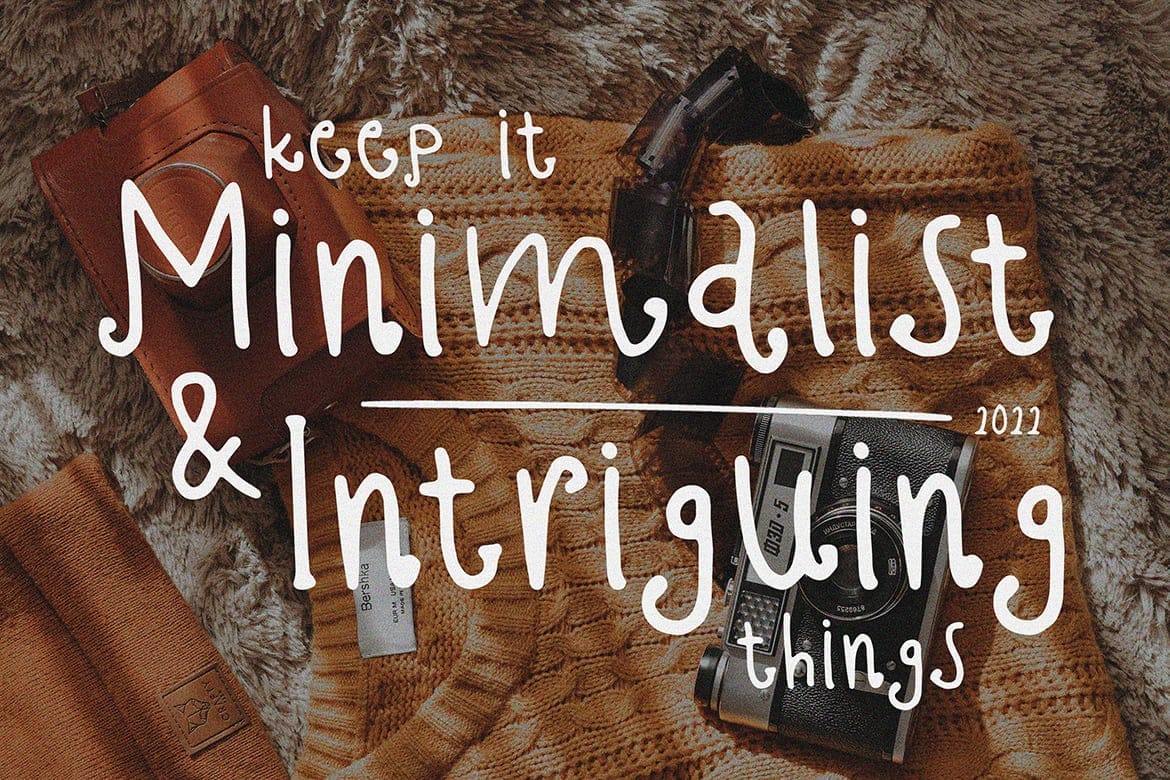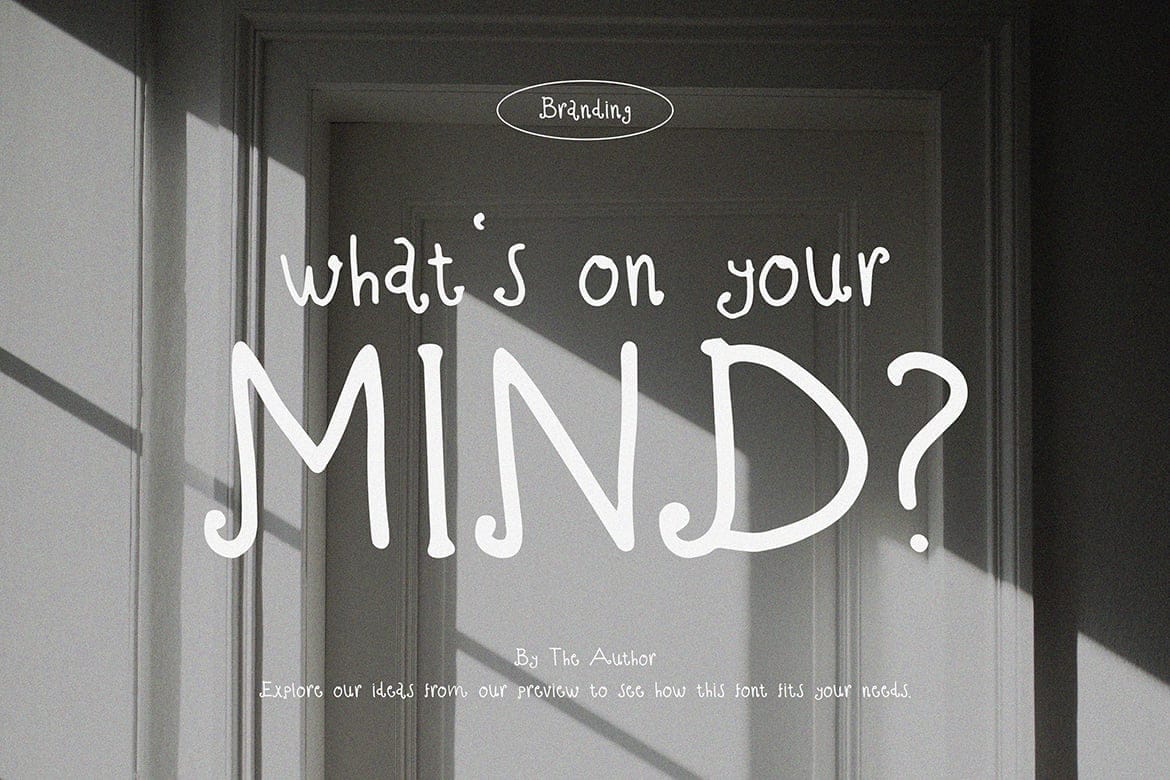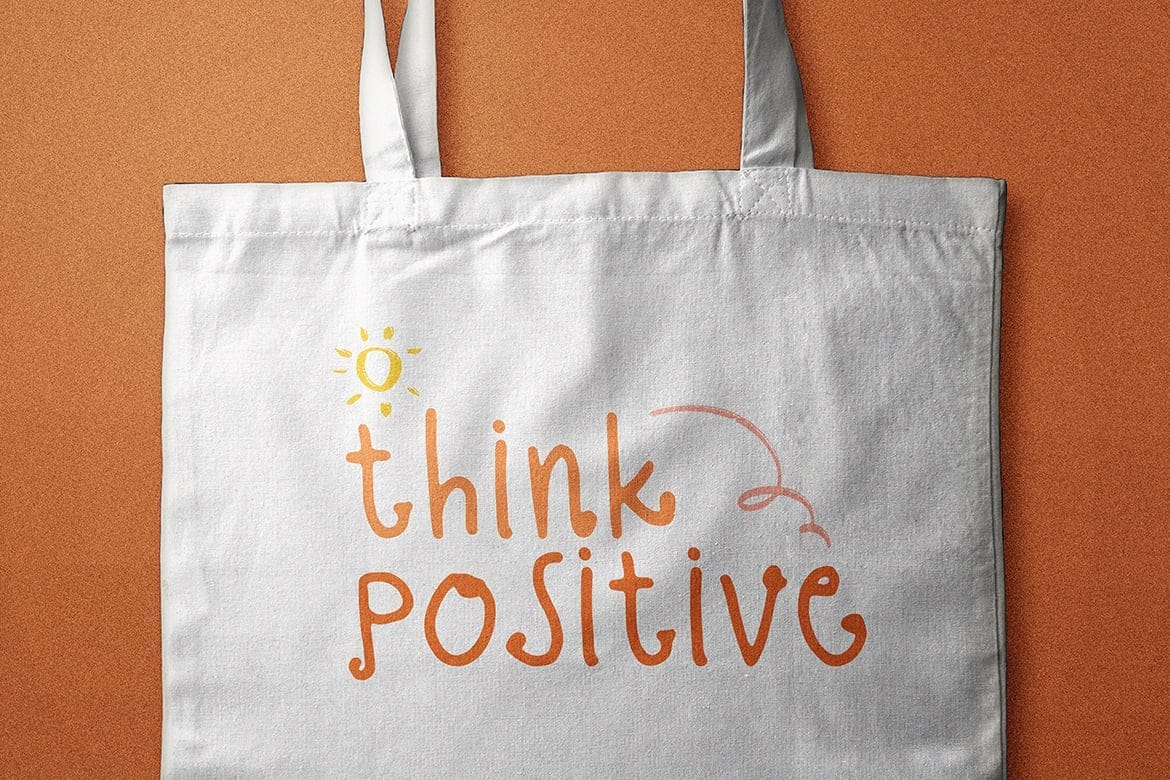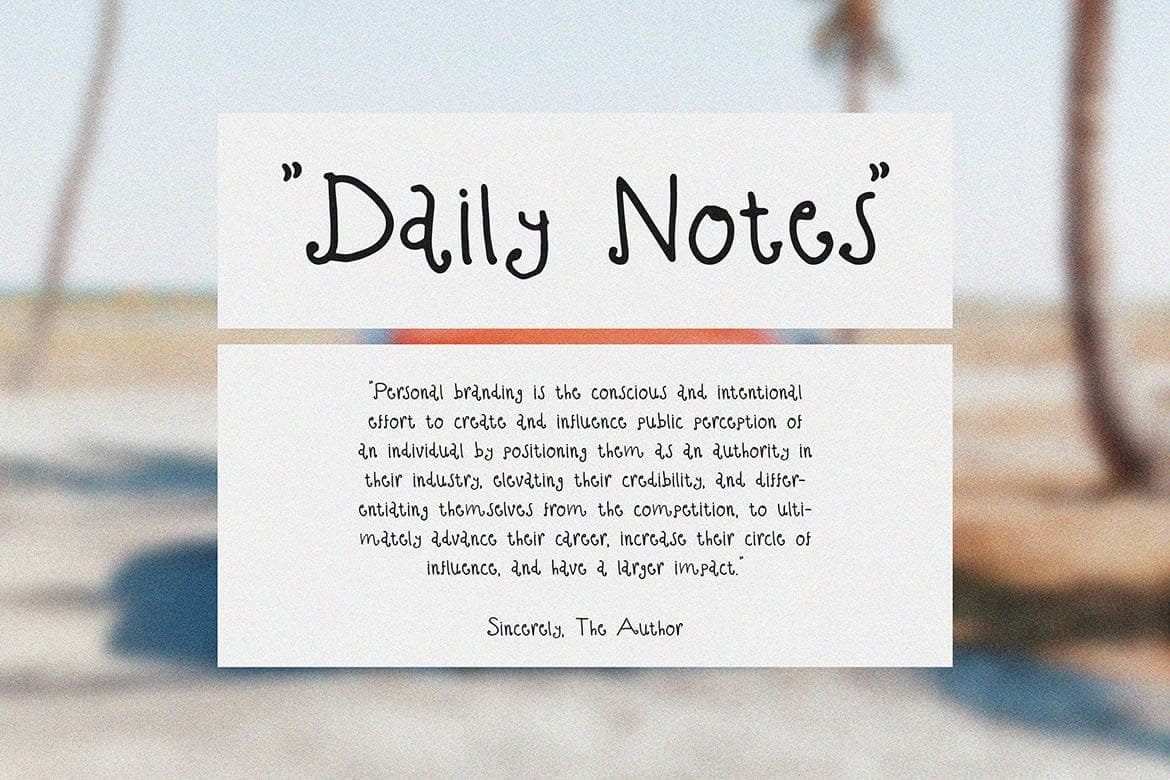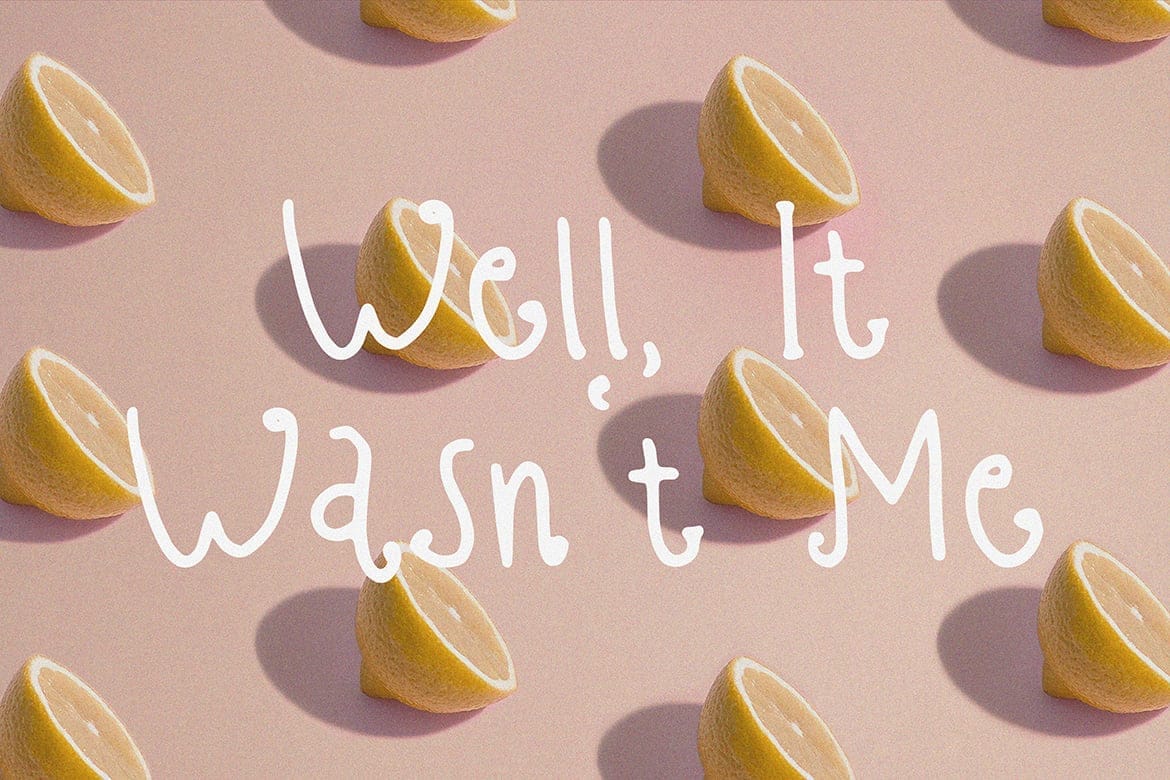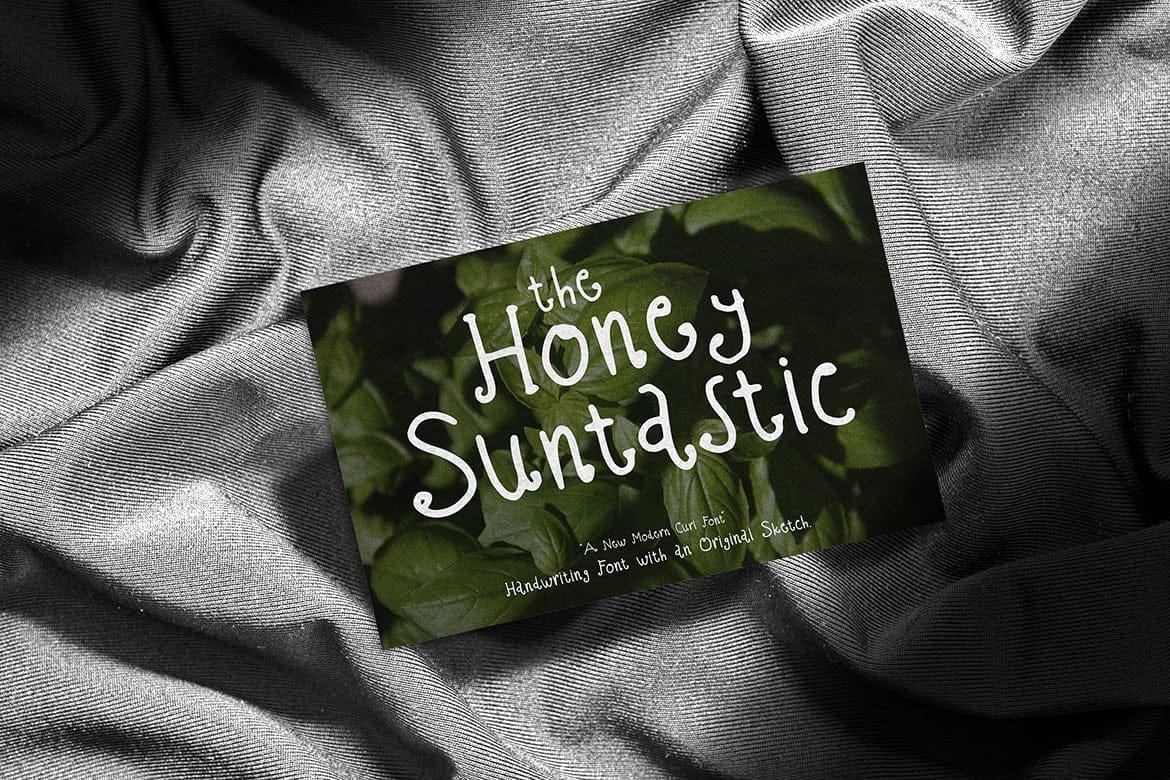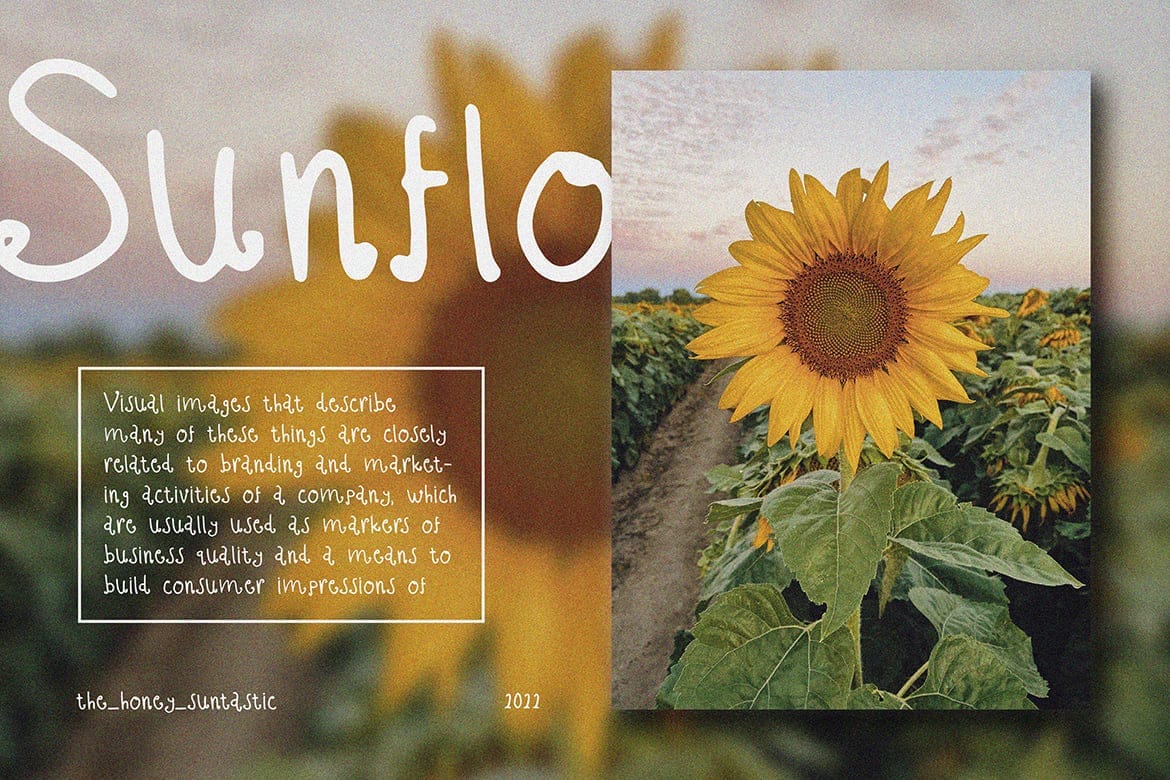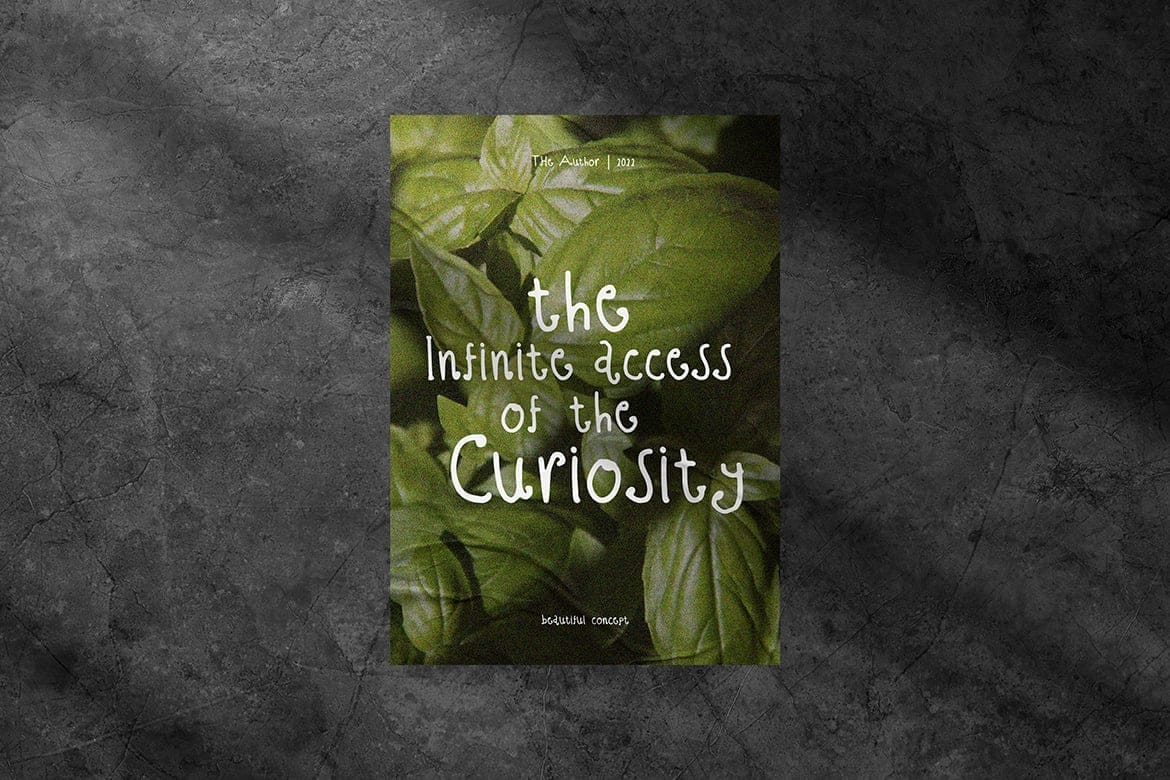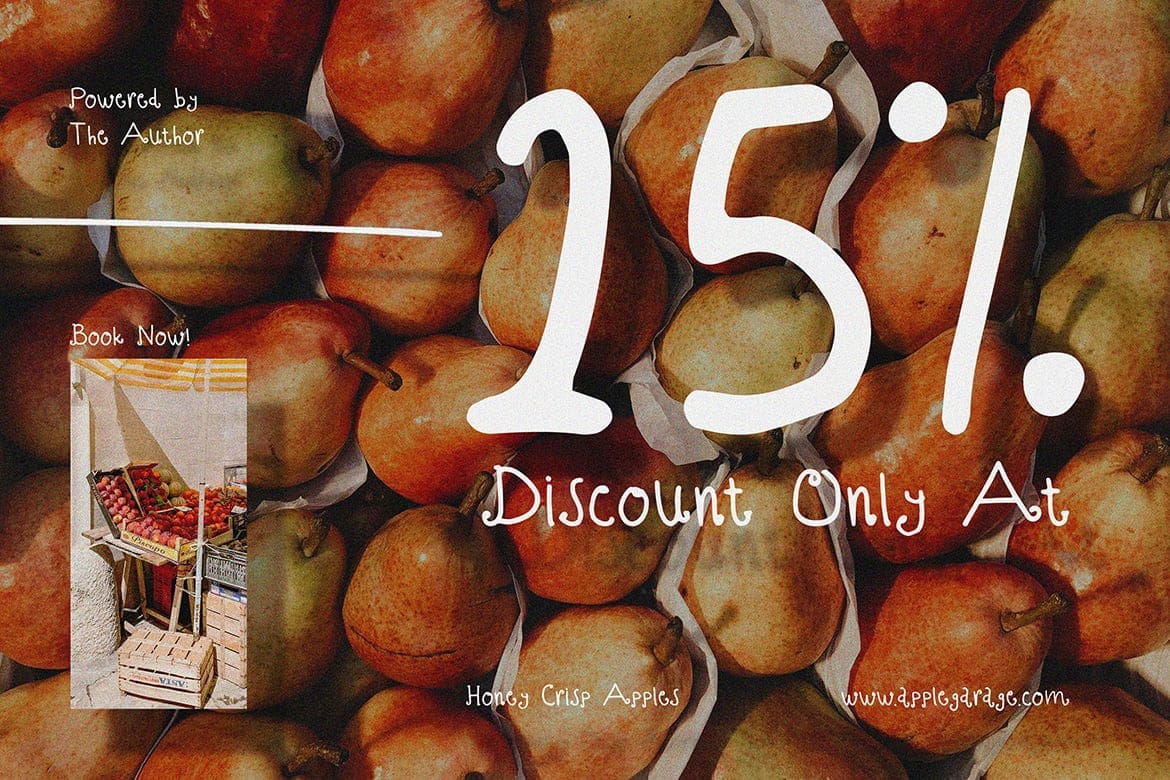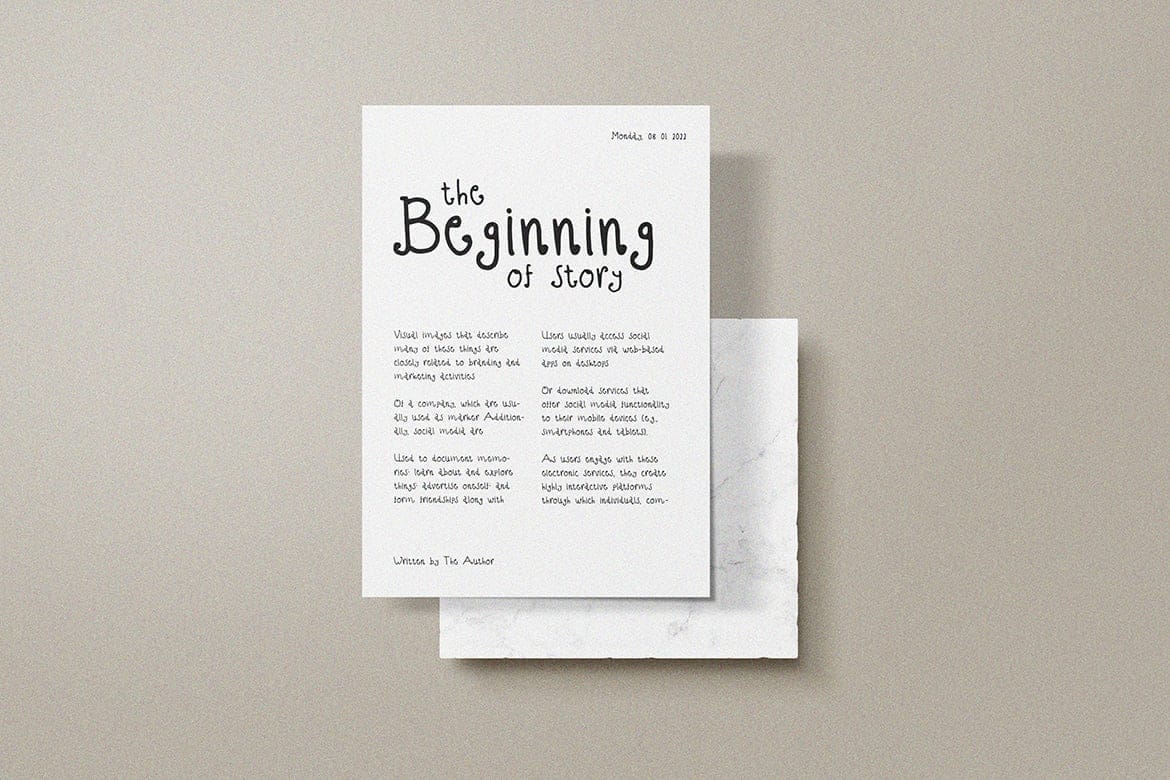
The Honey Suntastic Font
The Honey Suntastic is unique handwriting font. Created with original handmade sketch. This font suit for personal & commercial project such a poster, letter, headline, web blog, social media post, stories, banner, Packaging, T-shirt design, pillow, wedding invitation, or even for logo design.
Make your business stand out by writing in a way that’s unique to you. Use our handwriting font and give your brand a distinctive look.